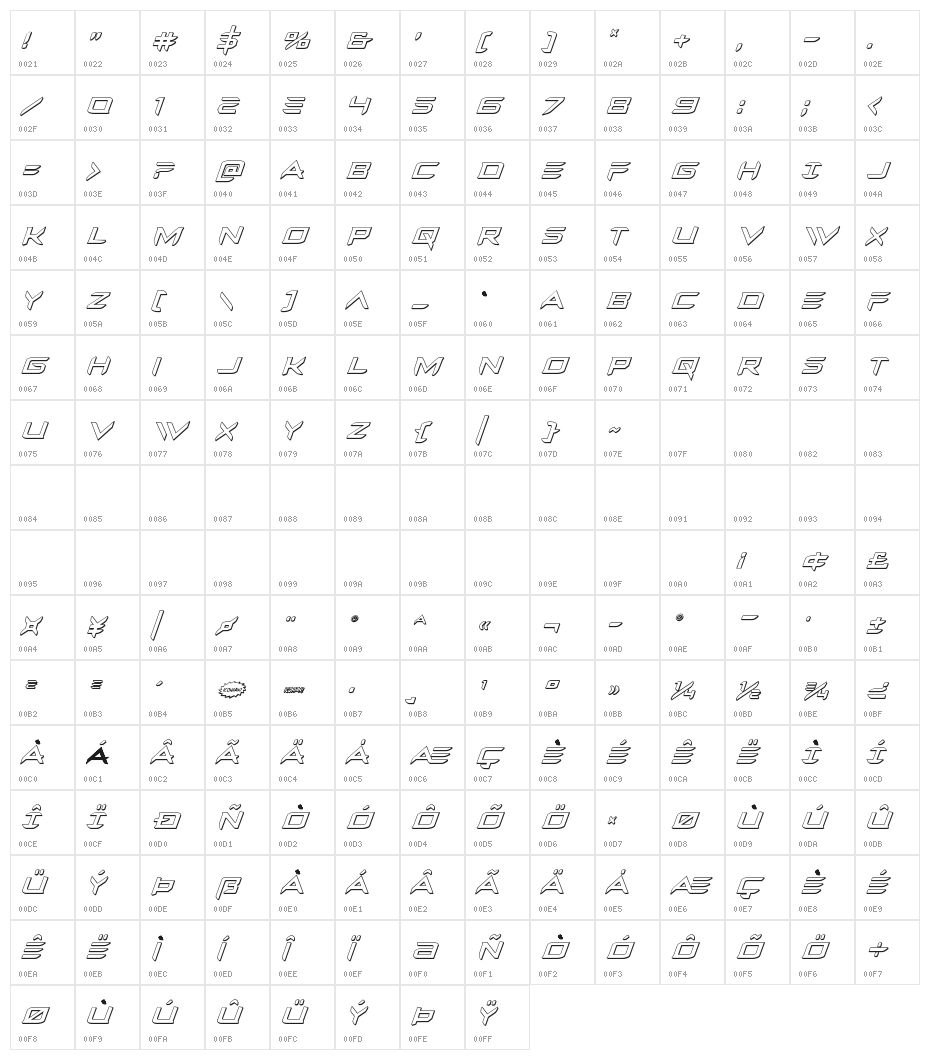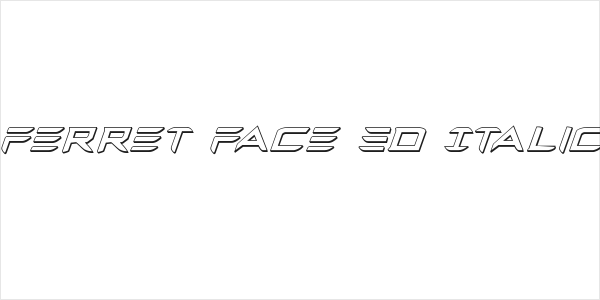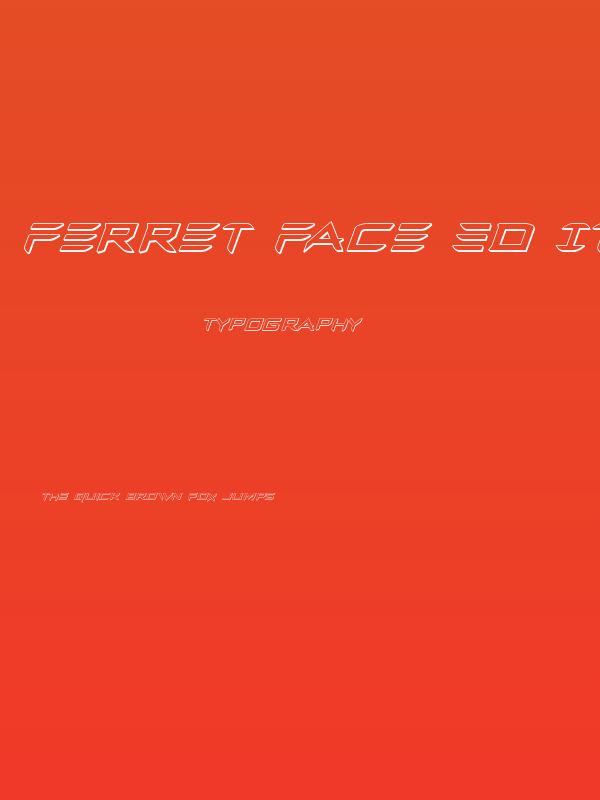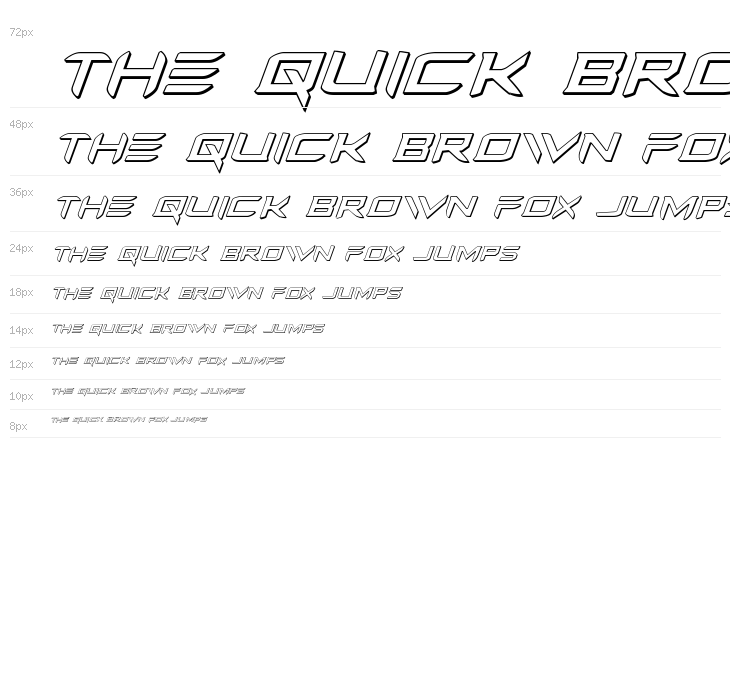
Ferret Face 3D Italic Font
Ferret Face 3D Italic Description
This font features a dynamic and futuristic design with a 3D effect, characterized by sharp angles and a bold, italicized style. The letters are outlined, giving them a hollow appearance that enhances the three-dimensional look. The uppercase and lowercase letters maintain a consistent style, with a slight slant that adds to the italic effect. Numbers and special characters follow the same design principles, ensuring uniformity across all glyphs. The font's unique style makes it suitable for projects that require a modern and edgy aesthetic.
| Proposed Projects | Ideal for video game titles, tech-themed posters, futuristic branding, and sci-fi book covers. |